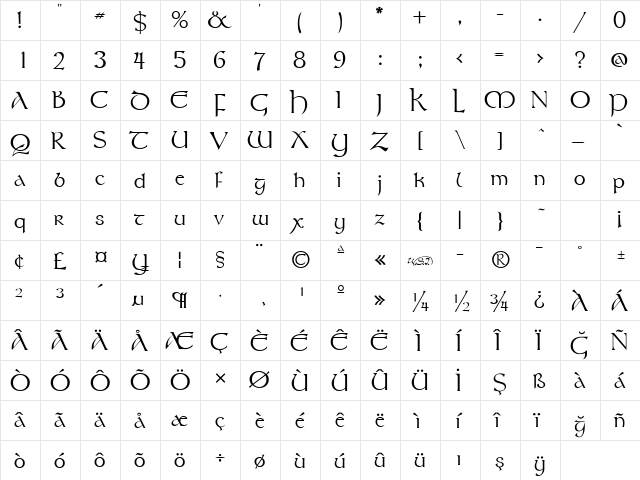
Tolkien Regular
Design Context for Tolkien Typeface
Tolkien takes a measured approach to typography — its balanced proportions and neutral character make it a reliable workhorse for both digital and print work.